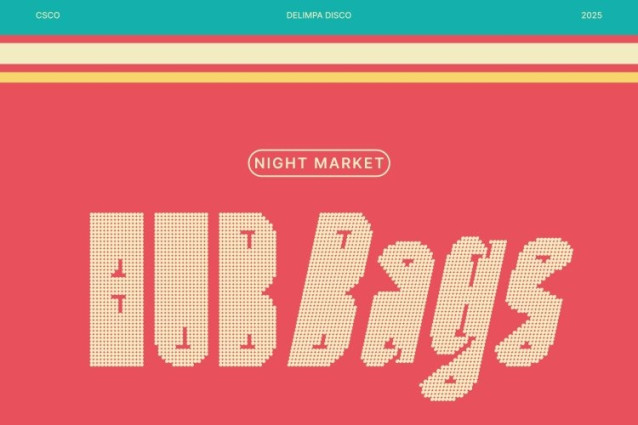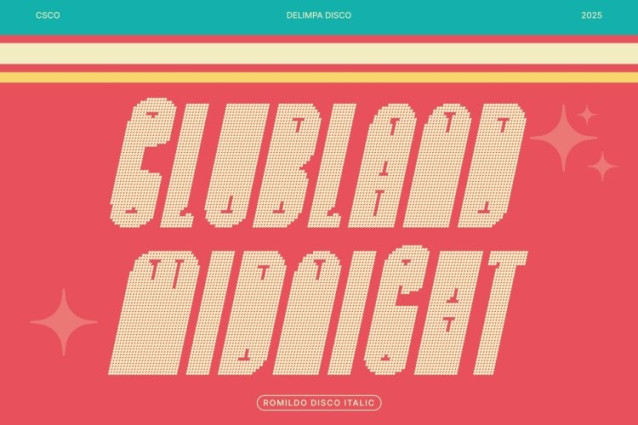
Delimpa Disco Font
Delimpa Disco Font This is a condensed sans serif font crafted for maximum impact in tight spaces. Its blocky forms and inktrap details create a bold, structured appearance, making it ideal for designs that demand attention and clarity.
Geometric Precision with Modern Flair
The clean, geometric shapes and well-balanced proportions ensure readability while maintaining a contemporary aesthetic. This font works perfectly for headlines, posters, and branding projects that require a modern, stylish edge.
Disco Effect for Glamorous Energy
The disco effect adds sparkle and dynamic energy to the font, transforming its structured shapes into a vibrant, eye-catching style. Each letter shines with a lively, glamorous personality, bridging modern minimalism with playful flair.
Versatile for Creative Applications
This font is suitable for a wide range of design projects, from editorial layouts to digital branding, party posters, and promotional graphics. Its combination of compact strength, geometric precision, and disco glamour makes it a versatile choice for designers seeking bold, modern, and visually striking typography.